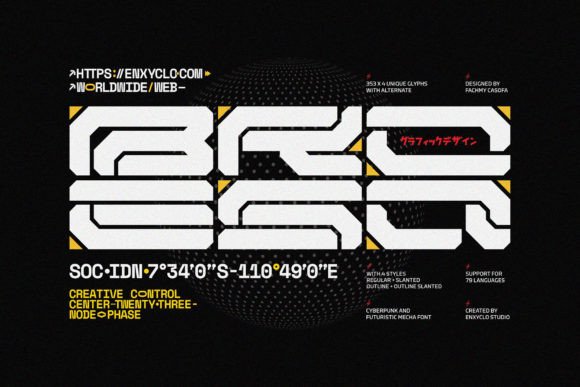
The Cyberpunk Font That Took My Designs to the Next Level: BROESQ
I still remember the day I stumbled upon BROESQ while working on a futuristic project for a tech client. I had been searching for the perfect font for hours, trying out different options, but nothing seemed quite right. That was until I saw BROESQ – a cyberpunk, futuristic techno-mecha font that instantly caught my eye. Its unique aesthetic added a whole new dimension to my design, making it stand out in a crowded digital landscape.
An Honest Review of BROESQ
What I Love About BROESQ ✨
• 💻 Unique Aesthetic: BROESQ’s cyberpunk design gives my projects a futuristic feel that’s hard to achieve with other fonts.
• ✅ Versatility: Whether I’m working on a website, poster, logo, or any other project, BROESQ fits right in.
• 🔥 Attention-Grabbing: This font demands attention, making it perfect for projects that need to stand out.
• 💡 Innovative and Sophisticated: BROESQ adds that extra touch of innovation and sophistication to my designs.
• ⚠️ Learning Curve: BROESQ’s unique features and glyphs can take some time to get used to, especially for those new to OpenType fonts.
• ⚠️ Not Suitable for All Projects: While BROESQ is incredibly versatile, it’s not the best fit for traditional or serif-heavy designs.
Exploring Alternatives to BROESQ
The Backstory Behind BROESQ
While the true origins of BROESQ are shrouded in mystery, it’s said that the font was created by a team of designers inspired by the cyberpunk movement and futuristic technology. Their goal was to craft a font that embodied the spirit of innovation and rebellion, perfect for designers looking to push the boundaries of creativity.
Font Name Broesq Font
Author Enxyclo
What makes BROESQ unique? BROESQ’s cyberpunk, futuristic design and extensive OpenType features set it apart from other fonts.
Is BROESQ difficult to use for beginners? While BROESQ has a lot to offer, it may require some time to get used to, especially for those new to OpenType fonts and glyphs.